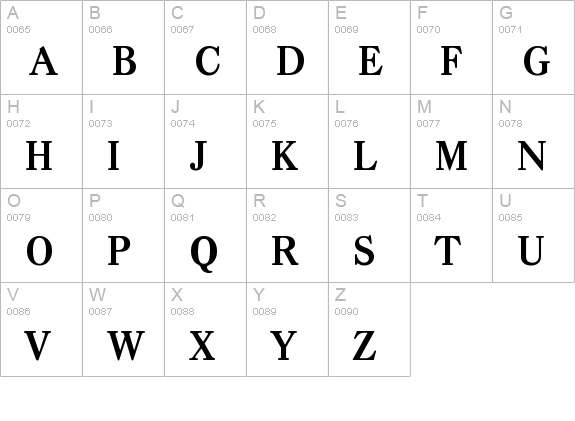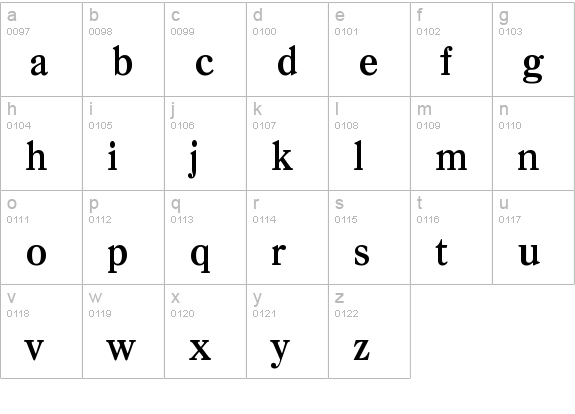
CasadSerial-Bold Font Details
CasadSerial-Bold is a strong, high-contrast variant in the CasadSerial typeface family \xE2\x80\x94 well suited to headlines, attention-grabbing titles, and strong calls-to-action.
CasadSerial-Bold is a modern and sleek font that exudes confidence and style. With its bold and strong appearance, this font is perfect for creating eye-catching headlines, titles, and other design elements that demand attention. The clean lines and sharp edges of CasadSerial-Bold give a professional and polished look to any project. What's even better is that CasadSerial-Bold is available for free download at FontsMarket.com. This means you can easily access this versatile font and use it in your personal or commercial projects without any cost. Whether you're designing a website, creating promotional materials, or working on a branding project, CasadSerial-Bold is a fantastic choice that will elevate your designs to the next level. Download this font today and add a touch of sophistication to your work!